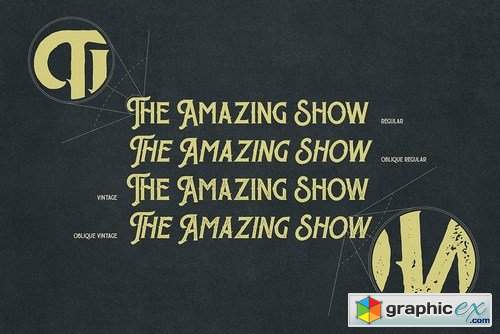
The Sherloks - 4 Styles
The Sherloks have 4 Style : Regular, Oblique Regular, Vintage and Oblique Vintage with handdrawn character and opentype feature its very helpfull to get Vintage design. Suitable and applicable to create vintage design, branding, logos, product packaging, invitation, qoutes, t-shirt, label poster etc.